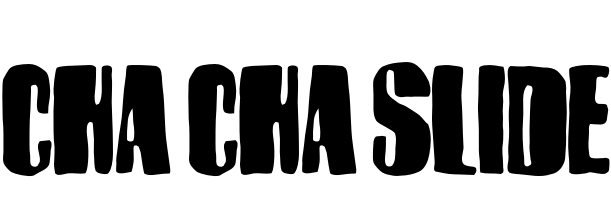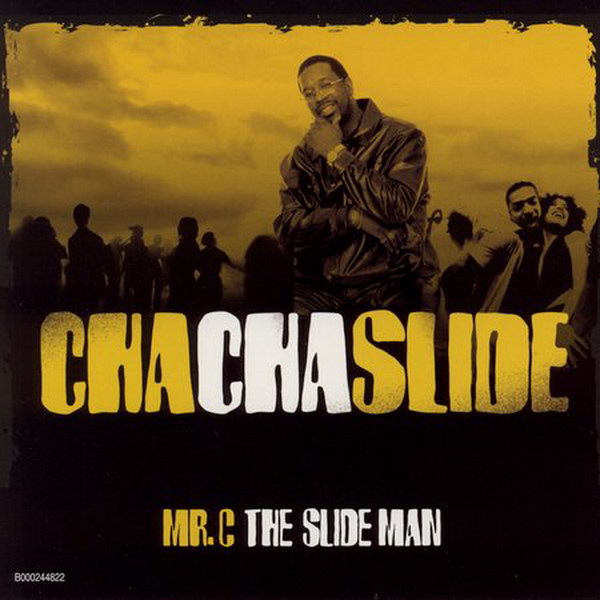
Cha Cha Slide Font
ElectronicCha Cha Slide is a popular dance song by DJ Casper released in 2000. It features a catchy chorus and instructions for a series of dance steps.